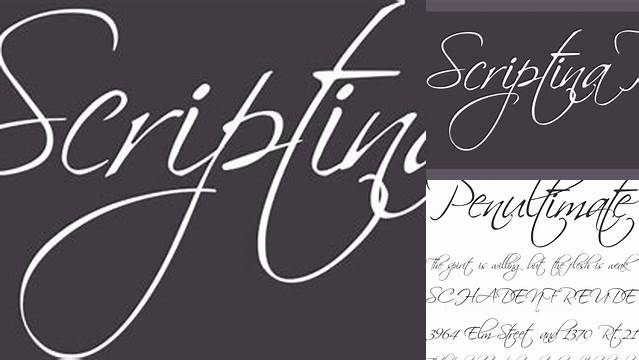
Free Scriptina Font Generator: Create Unique Text!
Hey guys! Ever wanted to make your text look super fancy and unique? Well, you're in the right place! We're diving deep into the world of Scriptina font generators and how you can use them for free. Let's get started!
What is Scriptina Font?
Before we jump into the generators, let's understand what Scriptina font actually is. Scriptina is a beautifully flowing script font that adds an elegant touch to any design. It's often used for invitations, logos, and anything that needs a bit of sophistication. Its distinctive swirls and curves make it instantly recognizable and appealing. The original Scriptina font was designed with careful attention to detail, ensuring each character flows seamlessly into the next. This makes it a popular choice for designers looking to add a touch of class to their projects. But what if you want to use Scriptina without actually having the font installed? That’s where font generators come in!
Why Use a Scriptina Font Generator?
Okay, so why bother with a Scriptina font generator? Simple! You might not have the font installed on your computer, or you might just want to quickly create some text in Scriptina without going through the hassle of downloading and installing it. These generators let you type in your text, and bam, it appears in Scriptina! This is super handy for social media posts, quick design mockups, or just experimenting with different looks. Plus, many of these generators are completely free, making them accessible to everyone. Think of it as a quick and easy way to add a touch of elegance to your digital creations without any complicated steps.
Free Scriptina Font Generators Online
There are tons of free Scriptina font generators floating around the internet. Some are better than others, but the core idea is the same: you type, they generate. Look for generators that offer a preview of the text so you can see how it looks before you commit. Also, check if the generator allows you to download the generated image or text. Some popular options include those found on websites offering a variety of font styles and customization options. Always ensure the site is reputable to avoid any potential security issues. With a little searching, you’ll find the perfect generator to suit your needs and help you create stunning Scriptina text in seconds.
How to Use a Scriptina Font Generator
Using a Scriptina font generator is usually pretty straightforward. First, find a generator you like. Once you're on the site, you'll usually see a text box where you can type in your desired text. After typing, the generator will display your text in the Scriptina font. Some generators offer additional customization options, such as changing the font size, color, or adding effects like shadows or outlines. Once you're happy with the result, you can typically download the generated image or copy the text to use in your project. It's really that simple! Just remember to double-check the terms of use for any specific generator, especially if you plan to use the generated text for commercial purposes.
Scriptina Font Generator for Social Media
Want to make your social media posts pop? A Scriptina font generator can be your secret weapon. Imagine using elegant Scriptina text for your Instagram captions, Twitter bios, or Facebook updates. It instantly adds a touch of class and sophistication to your profile, making you stand out from the crowd. Many social media users are constantly looking for ways to make their content more visually appealing, and using a unique font like Scriptina is a great way to do just that. Just remember to keep the text readable and not overuse it, as too much fancy font can become overwhelming. A little bit of Scriptina can go a long way in enhancing your social media presence.
Scriptina Font Generator for Logos
Creating a logo? Think about using a Scriptina font generator to experiment with different text styles. Scriptina can add a touch of elegance and sophistication to your brand, making it memorable and visually appealing. Many businesses, especially those in the beauty, fashion, or wedding industries, use script fonts to convey a sense of luxury and style. A Scriptina font generator allows you to quickly prototype different logo designs without needing to install the font or use complicated design software. You can easily test different text combinations, sizes, and colors to see what works best for your brand. Just remember to ensure the generated logo is high-resolution and suitable for various applications, from business cards to website headers.
Scriptina Font Generator for Invitations
Planning a special event? Scriptina font is perfect for invitations! Whether it's a wedding, birthday, or graduation, Scriptina adds a touch of elegance and formality that's hard to beat. Using a font generator, you can easily create stunning invitation designs with personalized text. You can customize the font size, color, and even add decorative elements to match the theme of your event. Many online invitation design tools also incorporate font generators, making it even easier to create professional-looking invitations from the comfort of your own home. Your guests will be impressed by the beautiful and sophisticated look of your Scriptina-designed invitations.
Scriptina Font Generator for Banners
Need an eye-catching banner? A Scriptina font generator can help you create text that stands out. Whether you're promoting a sale, advertising an event, or simply want to add some flair to your website, Scriptina can make your banner more visually appealing. Using a font generator, you can experiment with different text sizes, colors, and styles to see what works best for your banner design. You can also add effects like shadows or outlines to make the text even more prominent. Just remember to keep the text concise and easy to read, as banners are typically viewed quickly. With a little creativity, you can create a stunning Scriptina-designed banner that grabs attention and conveys your message effectively.
Scriptina Font Generator No Download
The beauty of a Scriptina font generator is that you usually don't need to download anything. These generators work online, so you can create your text directly in your browser without installing any software. This is especially convenient if you're using a computer where you don't have permission to install fonts, or if you just want to quickly generate some text without the hassle of downloading and installing. Simply visit the website, type in your text, and the generator will display it in Scriptina font. You can then download the generated image or copy the text to use in your project. This no-download approach makes Scriptina font generators incredibly accessible and easy to use for anyone.
Scriptina Font Generator Online
As we've touched on, Scriptina font generators are readily available online. This means you can access them from any device with an internet connection, whether it's your computer, tablet, or smartphone. The convenience of online generators makes them a popular choice for designers, marketers, and anyone who wants to quickly create text in Scriptina font. Simply search for "Scriptina font generator" on your favorite search engine, and you'll find a variety of options to choose from. Many of these online generators are free to use, making them an affordable way to add a touch of elegance to your projects. Just be sure to choose a reputable site to ensure your security and privacy.
Script Font Generator Similar to Scriptina
If you're looking for alternatives to Scriptina, there are many script font generators that offer similar styles. These generators allow you to create text in various script fonts that share Scriptina's elegant and flowing characteristics. Some popular alternatives include Brush Script, Edwardian Script, and Great Vibes. Each of these fonts has its own unique personality, but they all share the same general aesthetic as Scriptina. Using a script font generator, you can experiment with different fonts to find the perfect one for your project. Whether you're designing a logo, creating an invitation, or simply want to add some flair to your social media posts, a script font generator can help you find the perfect font to suit your needs.
Stylish Text Generator Scriptina
Want to add some style to your text? A stylish text generator with Scriptina can do the trick! These generators allow you to create text with various effects, such as shadows, outlines, and gradients, all while using the elegant Scriptina font. This is a great way to make your text stand out and grab attention. You can use stylish text generators to create eye-catching headings, logos, or social media posts. The combination of Scriptina's elegant curves and the added visual effects can create a truly stunning result. Just remember to use these effects sparingly, as too much can be overwhelming. A little bit of style can go a long way in enhancing your text.
Cool Text Generator Scriptina
Looking for a cool text generator that features Scriptina? You're in luck! Many online generators offer a variety of fun and creative text effects that can be applied to Scriptina font. These effects can include things like 3D text, neon text, and glitch text. Using a cool text generator, you can create text that's both stylish and attention-grabbing. This is a great way to add some personality to your projects and make them stand out from the crowd. Whether you're designing a website, creating a social media campaign, or simply want to add some flair to your personal projects, a cool text generator with Scriptina can help you achieve your goals.
Fancy Text Generator Scriptina
If you're aiming for elegance and sophistication, a fancy text generator with Scriptina is the perfect choice. These generators specialize in creating text that's both beautiful and refined. They often offer a variety of decorative elements, such as swirls, flourishes, and embellishments, that can be added to Scriptina font. This is a great way to create text that's perfect for invitations, logos, and other high-end designs. A fancy text generator can help you create text that exudes luxury and style, making your projects truly stand out.
Scriptina Font Effect Generator
Want to add some visual flair to your Scriptina text? A Scriptina font effect generator is the answer. These generators allow you to apply various effects to your text, such as shadows, outlines, gradients, and textures. This is a great way to make your text more visually appealing and attention-grabbing. You can use font effect generators to create eye-catching headings, logos, or social media posts. The combination of Scriptina's elegant curves and the added visual effects can create a truly stunning result. Just remember to use these effects sparingly, as too much can be overwhelming. A little bit of effect can go a long way in enhancing your text.
Scriptina Font Style Generator
A Scriptina font style generator lets you play around with different variations of the font. This could include bold, italic, or even customized versions with unique flourishes. Playing with the style can give your text a completely different feel. Maybe you want a bolder Scriptina for a more impactful headline, or a slightly italicized version for a touch of elegance. These generators give you the flexibility to experiment and find the perfect style for your project. It's all about finding that sweet spot where the font complements your overall design.
Scriptina Font Design Generator
Taking it a step further, a Scriptina font design generator might offer more advanced customization options. Think about adding custom shapes around the text, incorporating images, or even creating entirely unique letterforms based on the Scriptina style. This is for those who really want to get creative and push the boundaries of what's possible with the font. You could design a logo that's unlike anything else out there, or create stunning artwork with personalized text. The possibilities are endless when you start playing with the design elements.
Best Scriptina Font Generator
So, what's the best Scriptina font generator out there? Honestly, it depends on what you're looking for. Some generators are super simple and straightforward, perfect for quick text creation. Others offer a ton of customization options, allowing you to fine-tune every detail. The best generator for you will depend on your specific needs and skill level. Do some research, try out a few different options, and see which one feels the most intuitive and offers the features you need. Don't be afraid to experiment and see what's out there!
Scriptina Calligraphy Font Generator
For a truly elegant touch, consider a Scriptina calligraphy font generator. These generators aim to replicate the look and feel of traditional calligraphy using the Scriptina font. This means you'll get those beautiful, flowing lines and delicate strokes that are characteristic of calligraphy. This is perfect for wedding invitations, formal announcements, or anything that needs a touch of old-world charm. A calligraphy font generator can help you create stunning text that looks like it was hand-lettered by a professional.
How to Download Scriptina Font for Free
While we've been focusing on online generators, you might also be wondering how to download Scriptina font for free. There are many websites that offer free font downloads, but you need to be careful. Always download fonts from reputable sources to avoid getting malware or infringing on copyright laws. Look for sites that offer a clear license agreement and have a good reputation within the design community. Once you've downloaded the font, you'll need to install it on your computer before you can use it in programs like Word or Photoshop.
Scriptina Font Generator for Commercial Use
Planning to use Scriptina font for commercial projects? Make sure you understand the licensing terms. Some free font generators may only allow personal use, while others may grant commercial licenses. Read the fine print carefully to avoid any legal issues down the road. If you're unsure, it's always best to contact the font designer or the website offering the font to clarify the usage rights. Using a font generator for commercial purposes can be a great way to create professional-looking designs without breaking the bank, but it's important to do your due diligence and ensure you're complying with all the necessary regulations.
Scriptina Font Generator for Personal Use
For personal projects, you generally have more leeway when it comes to using Scriptina font. Many free font generators allow you to use their fonts for non-commercial purposes without any restrictions. This means you can use Scriptina for things like creating invitations for your friends, designing social media posts for your personal account, or making artwork for your home. However, it's still a good idea to check the licensing terms to make sure you're not violating any rules. Even for personal use, some font designers may have specific guidelines about how their fonts can be used.
Scriptina Font Generator for Wedding Invitations
As we mentioned earlier, Scriptina is a fantastic choice for wedding invitations. A Scriptina font generator can help you create beautiful and elegant invitations that will impress your guests. You can use the generator to create personalized text with the names of the bride and groom, the date and time of the wedding, and any other important details. You can also experiment with different font sizes, colors, and styles to find the perfect look for your invitations. With a little creativity, you can create wedding invitations that are both stunning and memorable.
Scriptina Font Generator for Birthday Cards
Want to make a birthday card extra special? Use a Scriptina font generator to add a touch of elegance and sophistication to your message. Scriptina is perfect for writing heartfelt birthday wishes, funny jokes, or simply saying "Happy Birthday" in a stylish way. You can also use the generator to create personalized names or monograms for the birthday person. A Scriptina-designed birthday card is sure to make the recipient feel loved and appreciated.
Scriptina Font Generator for Greeting Cards
Whether it's Christmas, Easter, or just a simple "thinking of you" card, Scriptina can add a touch of class to your greeting cards. A Scriptina font generator allows you to create personalized messages with ease. Experiment with different colors and sizes to make your message stand out. You can even add decorative elements like hearts, stars, or flowers to complement the font. A Scriptina-designed greeting card is a thoughtful and elegant way to show someone you care.
Scriptina Font Generator for Posters
If you're creating a poster, you want to make sure your text is eye-catching and easy to read. A Scriptina font generator can help you achieve this by providing a variety of font styles and effects that can be applied to your text. You can use Scriptina to create bold headlines, catchy slogans, or informative descriptions. Just make sure the font size is large enough to be read from a distance. A well-designed poster with Scriptina font can be a powerful way to grab attention and convey your message effectively.
Scriptina Font Generator for Flyers
Similar to posters, flyers need to be visually appealing and easy to read. A Scriptina font generator can help you create text that stands out on your flyer. Use Scriptina for headlines, subheadings, or bullet points to add a touch of elegance and style. Remember to keep the text concise and to the point, as flyers are typically read quickly. A well-designed flyer with Scriptina font can be a great way to promote your event, business, or cause.